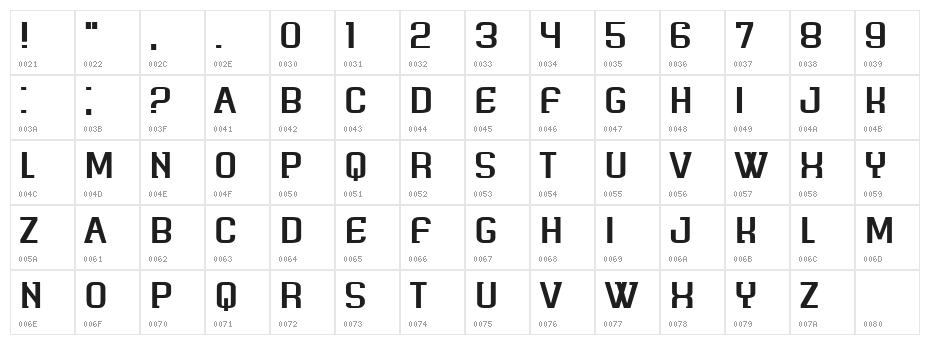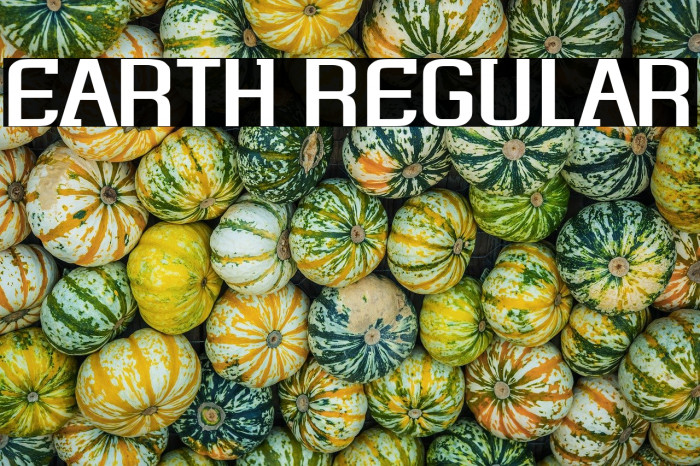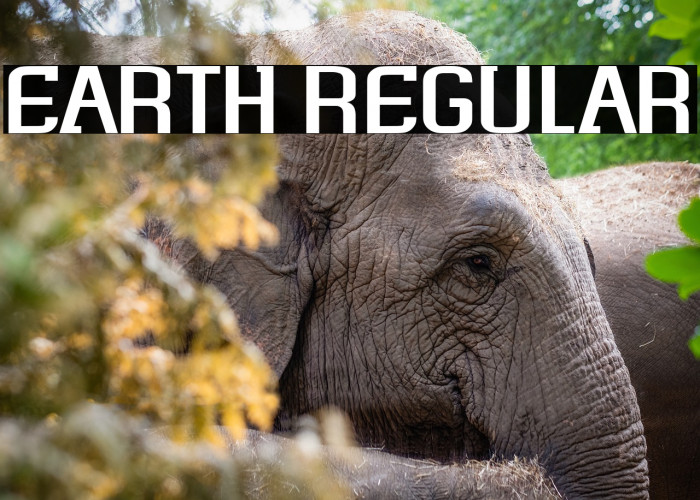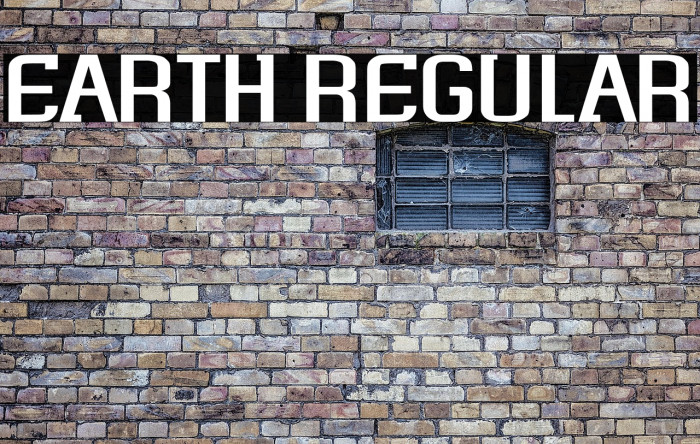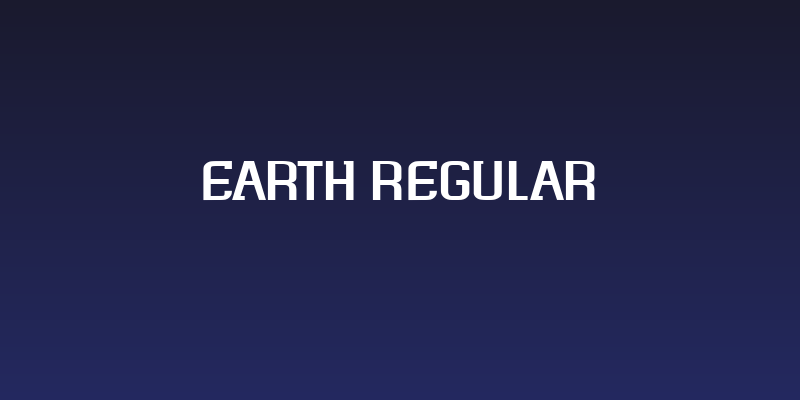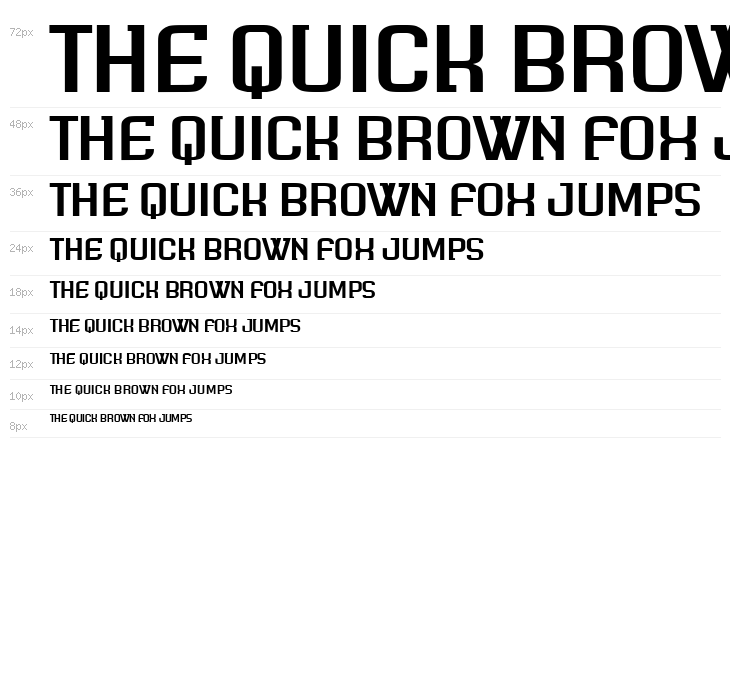
Earth Regular Font
Earth Regular Description
This font features a bold and geometric design with a modern aesthetic. Its characters are constructed with uniform stroke widths, giving it a clean and structured appearance. The uppercase letters are particularly striking, with sharp angles and a slightly condensed form that enhances readability. The numerals are equally bold, maintaining the geometric style, which makes them stand out. The special characters are designed to complement the overall look, ensuring consistency across all elements. This font's strong presence makes it ideal for impactful designs.